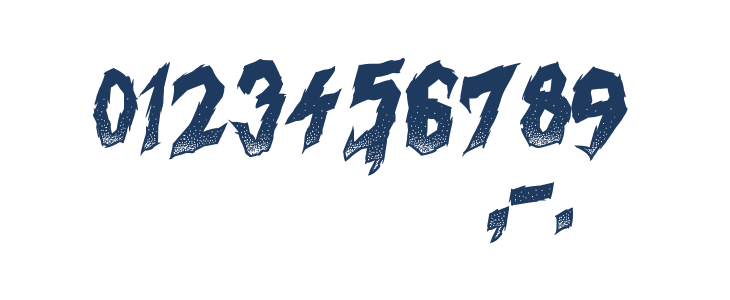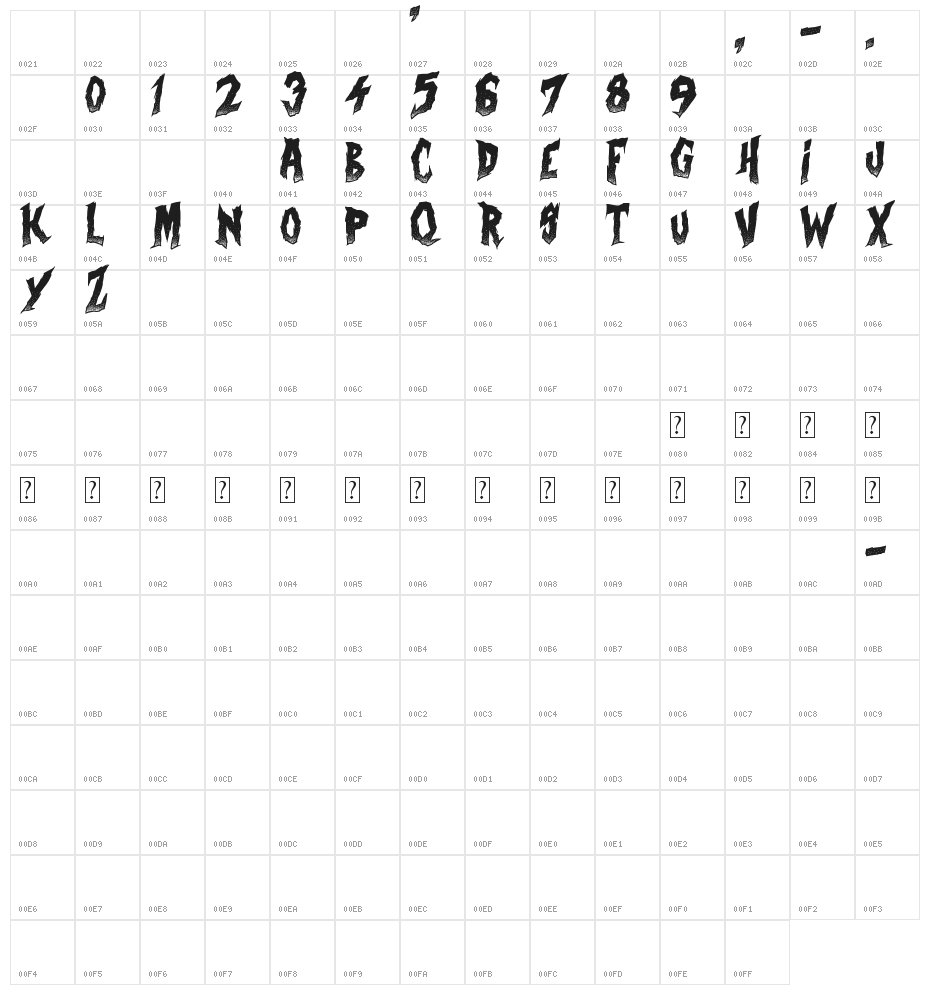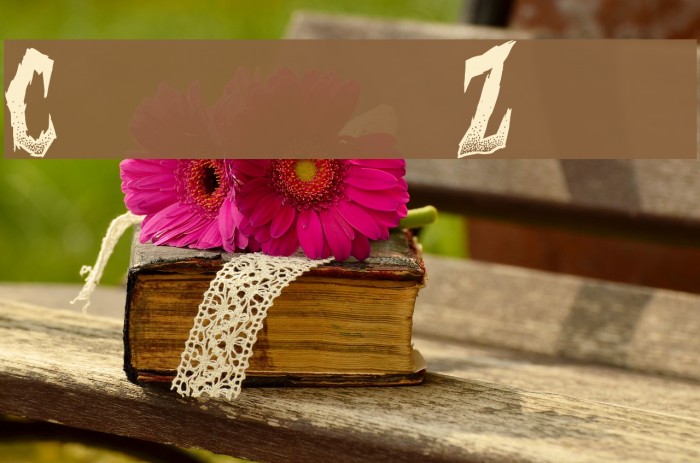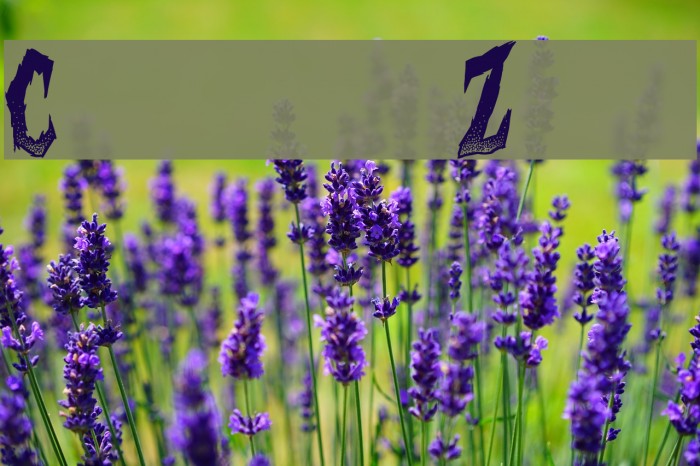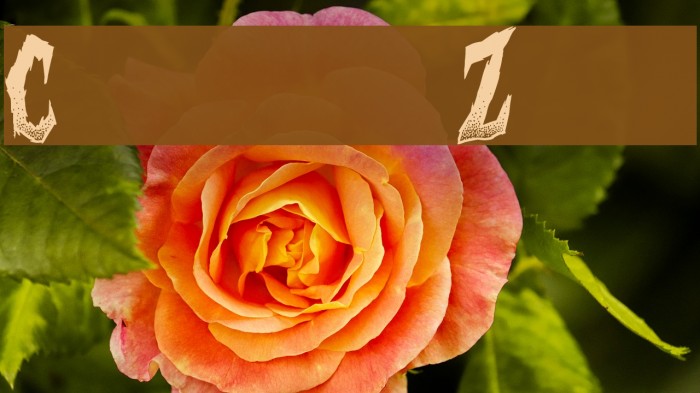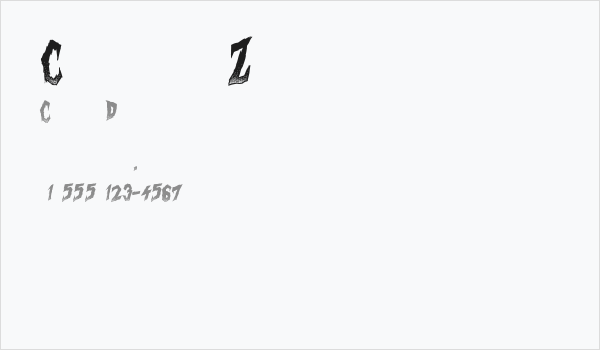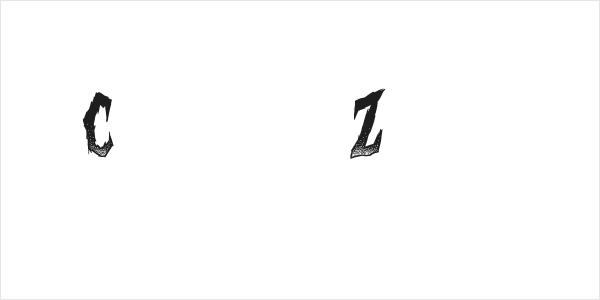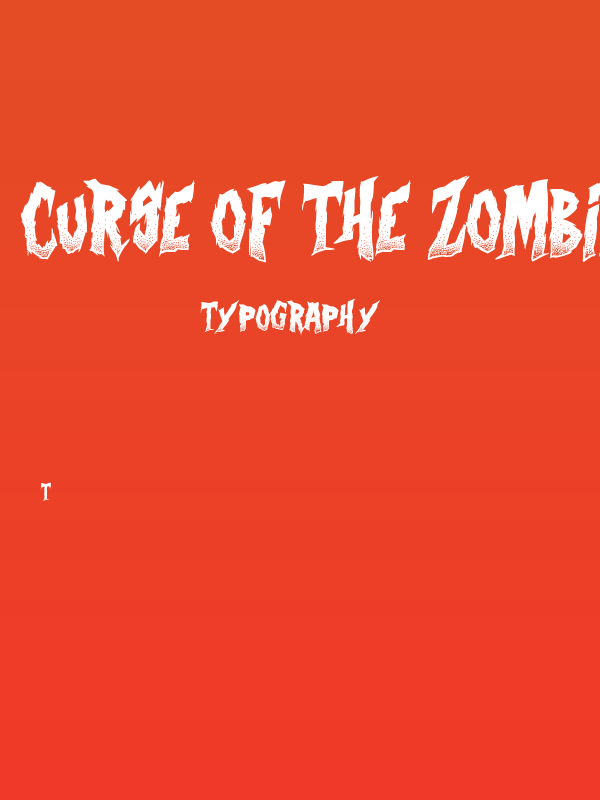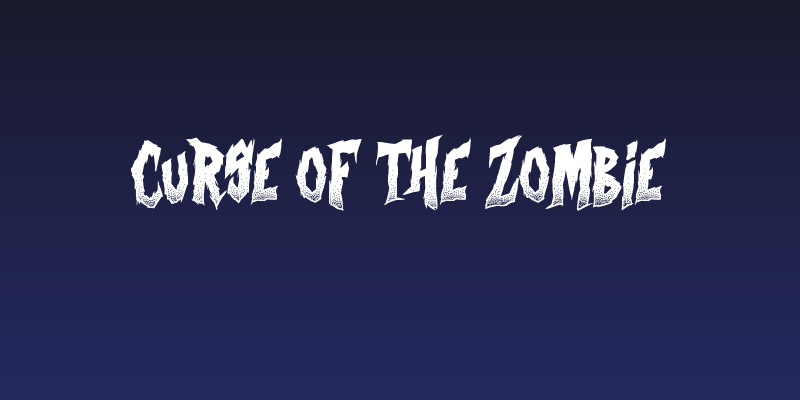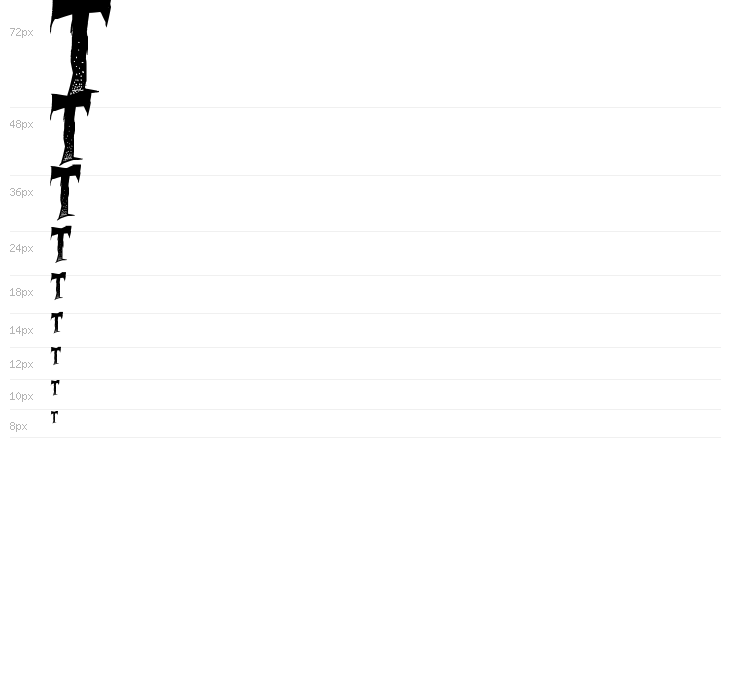
Curse of the Zombie Font
Curse of the Zombie Description
This font exudes a bold and edgy aesthetic, characterized by its jagged and irregular letterforms that evoke a sense of horror and mystery. The uppercase letters are particularly striking, with sharp angles and uneven edges that create a sense of movement and chaos. The numerals and special characters maintain this theme, adding to the overall eerie and unsettling vibe. The font's texture is reminiscent of decaying or distressed surfaces, enhancing its spooky appeal. It's perfect for projects that require a dramatic and eye-catching typeface, especially those related to horror, Halloween, or anything with a dark, gothic theme.
| Proposed Projects | Ideal for Halloween posters, horror movie titles, themed event invitations, and spooky merchandise designs. |